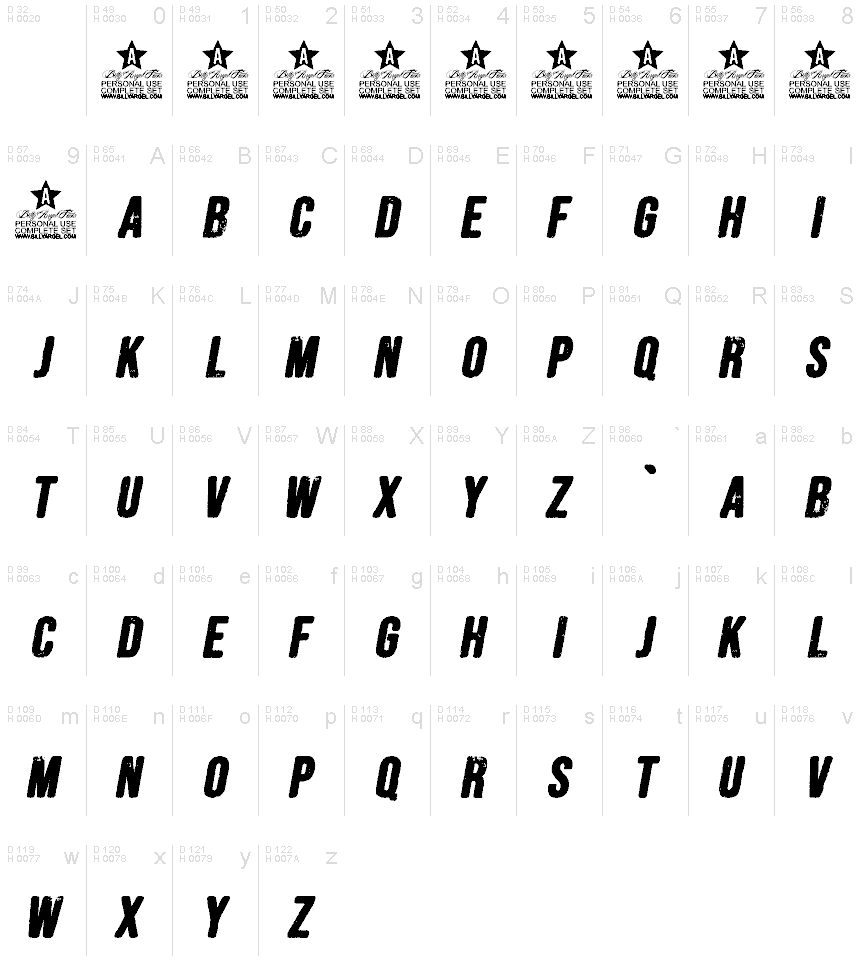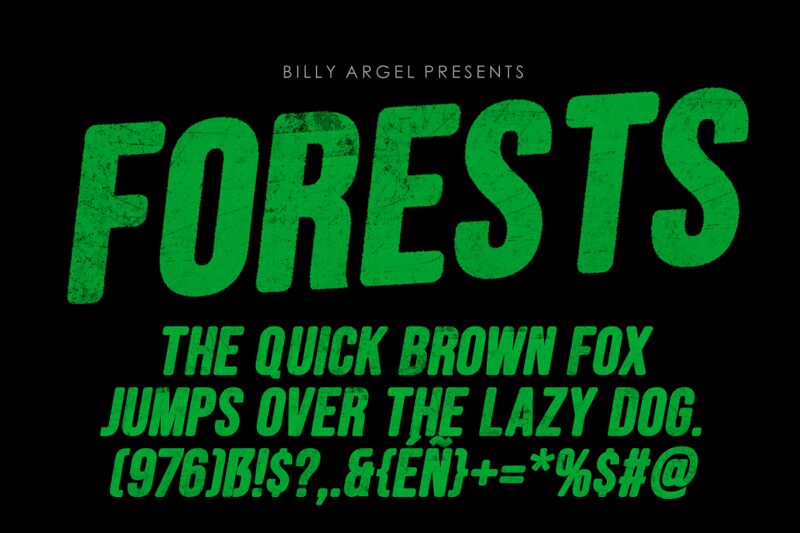
Forests Italic font by Billy Argel Fonts is an eroded display typeface with a rugged and distressed look, featuring a bold appearance and strong presence. Its design leans on industrial elements, which give it a slightly vintage yet timeless feel. This condensed font exhibits textured details in each letter for an overall artistic effect.
Beyond implementing its purely aesthetic values, Forests Italic font has many other possible use cases. Use it to customize posters, banners, album covers, flyers, invitation cards, T-shirt designs or graffiti and urban-inspired outdoor signages. The free display font can also be used in branding projects such as designing logos and stationery items.